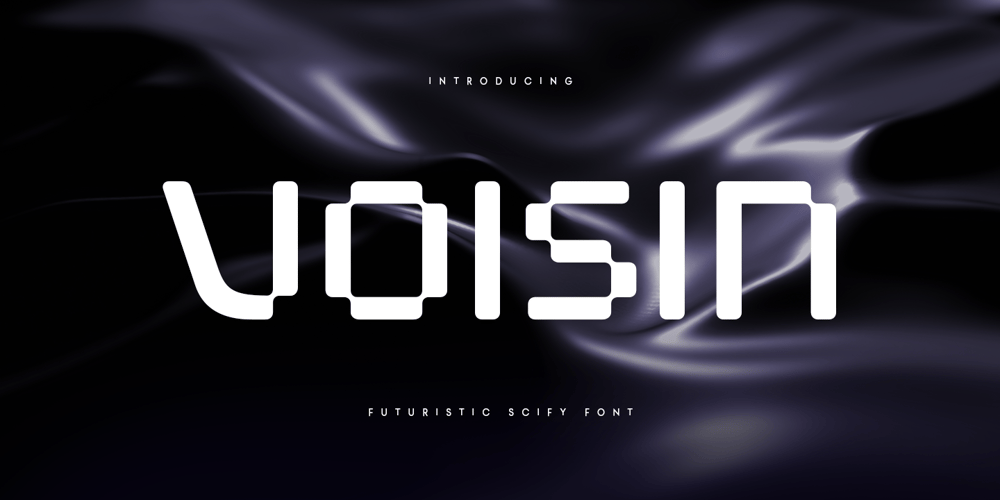
Voisin Font Family was designed by Zamroni Hamzah and published by Sensatype Studio. Voisin contains 1 styles and family package options. Voisin is a Futuristic Scifi Font that created special for Logo, Title and more stand out typography needs, with extra alternative characters that look like a symbols. Itβs so perfect to add your style and headline overview for crypto currency, innovation, futuristic, and sci-fi theme. And specially for this font, we crafted for modern style and clean feels so enjoy to create any project that will show your main idea out.Voisin β Futuristic Scifi Font ready with: Any alternative characters prepared to get creative variations 4 files format already Preview as a inspirations that you can do with Voisin font Ready with Uppercase and Lowercase characters Wish you enjoy our font. π